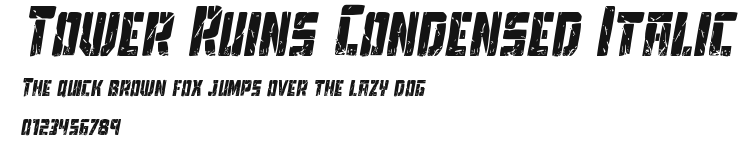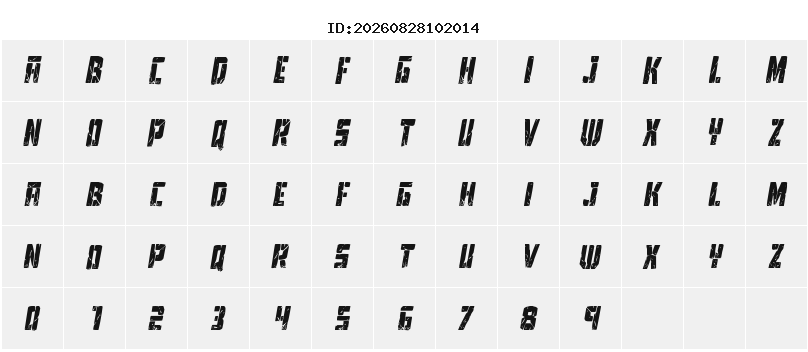
Tower Ruins Condensed Italic Preview
• Font Name: Tower Ruins Condensed Italic
• Font Style: Condensed Italic
• Full Font Name: Tower Ruins Condensed Italic
• PostScript Name: TowerRuinsCondensedItalic
About Tower Ruins Condensed Italic.ttf
Tower Ruins Condensed Italic.ttf is a modern, elegant sans-serif font designed for ultimate readability and visual harmony. Perfect for branding, headlines, web design, and print materials.